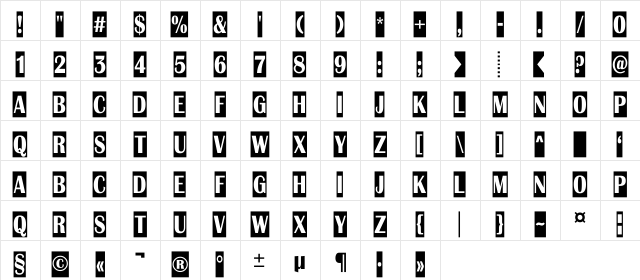
a_AlbionicTitulNrCm Regular
Design Context for a_AlbionicTitulNrCm Typeface
a_AlbionicTitulNrCm offers clean, dependable letterforms without strong stylistic allegiance, making it a practical choice for designers who need flexibility.